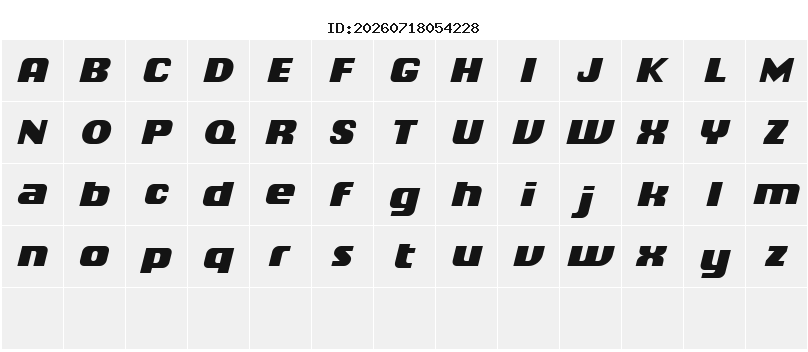
Chiq Reduced Preview
• Font Name: Chiq Reduced
• Font Style: Black Italic
• Font ID: IngoZimmermann: Chiq Reduced Black Italic: 2013
• Full Font Name: Chiq Reduced Black Italic
• PostScript Name: ChiqReduced-BlackItalic
• Designer: Ingo Zimmermann
• Manufacturer: Ingo Zimmermann
About Chiq Reduced.ttf
Chiq Reduced.ttf is a modern, elegant sans-serif font designed for ultimate readability and visual harmony. Perfect for branding, headlines, web design, and print materials.